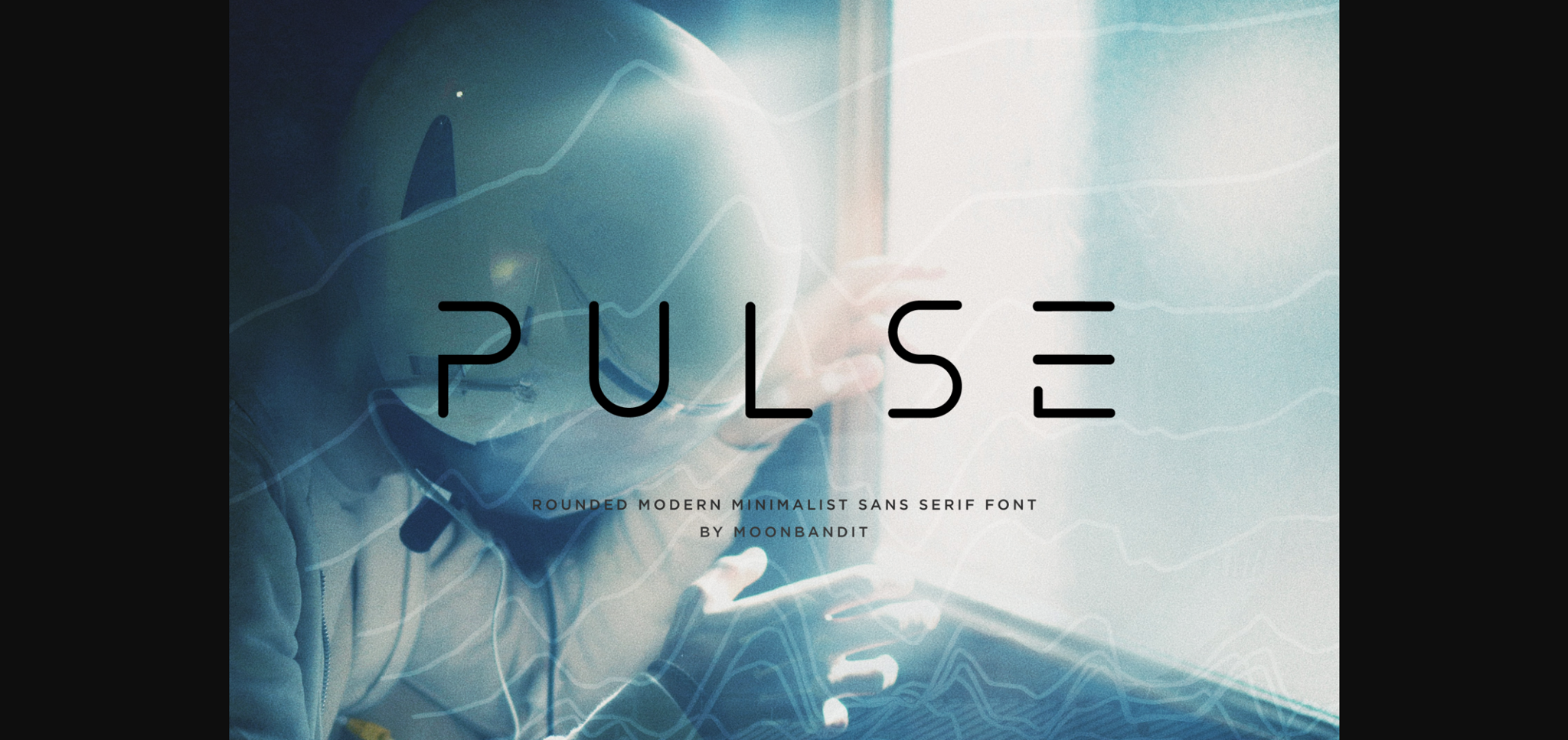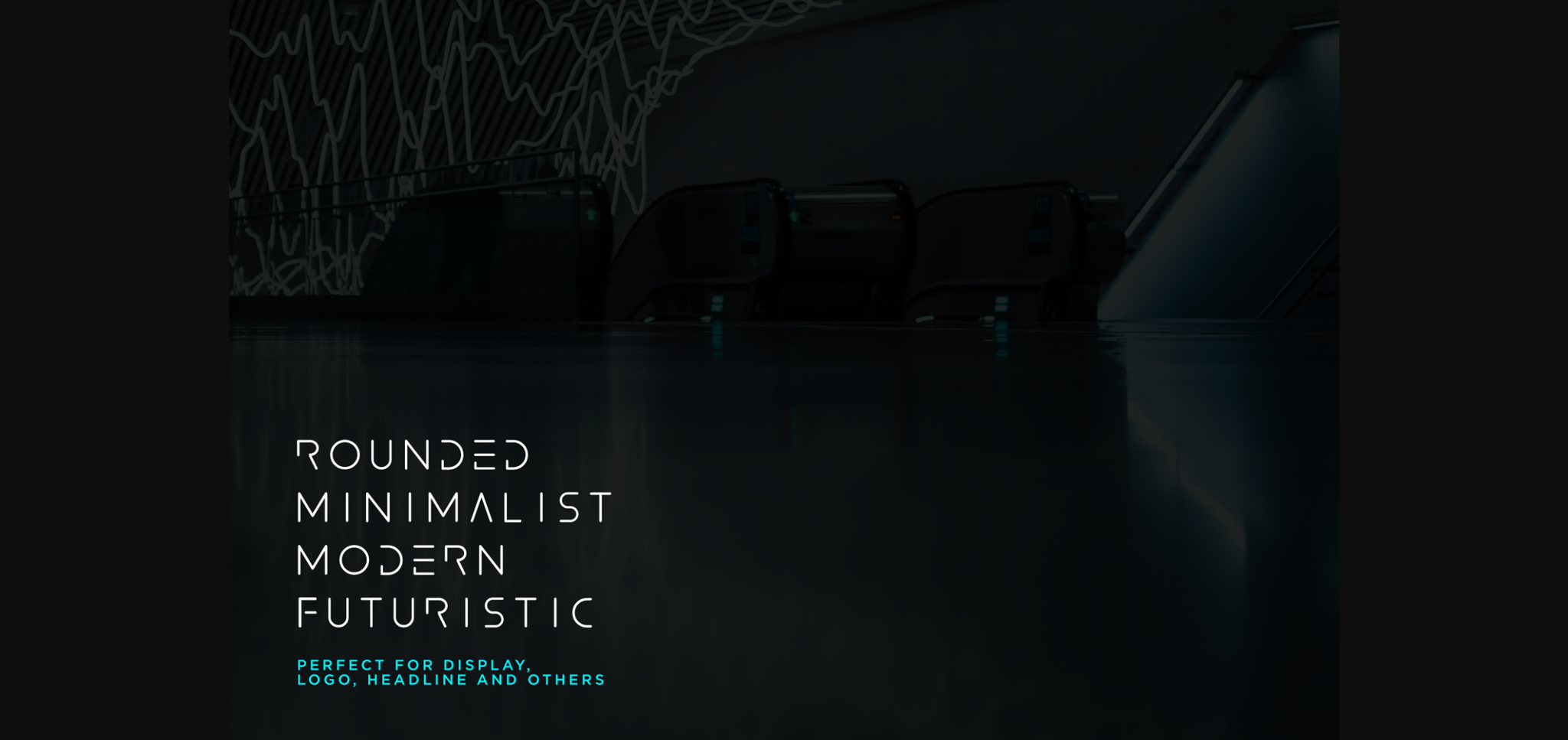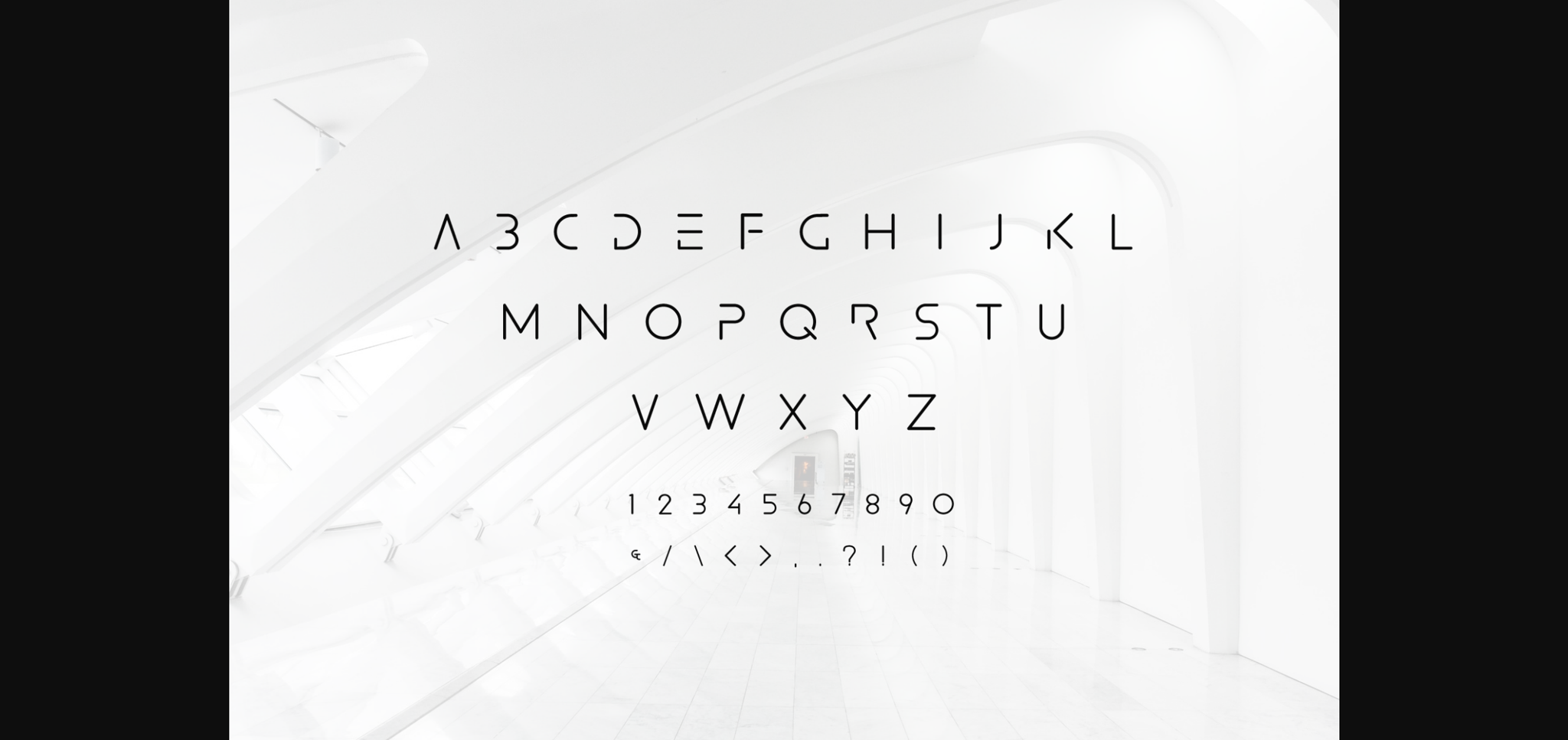
About Pulse Font
Pulse is a minimal and neat sans serif font. It can easily be matched to an incredibly large set of projects, so add it to your creative ideas and notice how it makes them stand out!